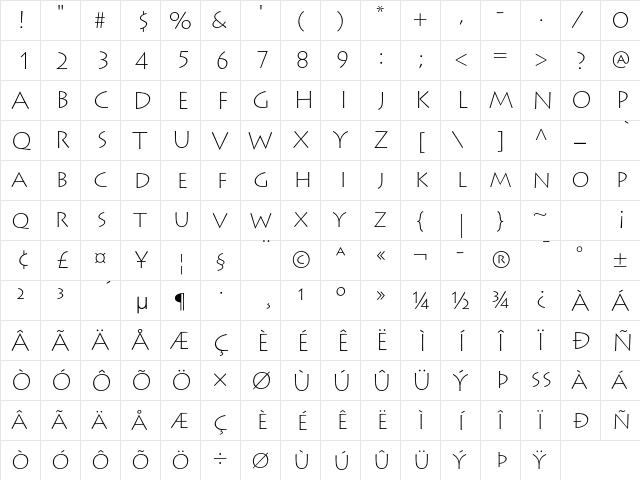
Lithos Pro Extra Light
| Designer | Carol Twombly |
Design Context for Lithos Pro Typeface
Lithos Pro is a composed and adaptable typeface that performs quietly and consistently across a wide range of design contexts. The delicate stroke weight brings airiness and refinement to layouts.
Pro Tip: Pair Lithos Pro with a font of contrasting weight or personality to build a more expressive typographic hierarchy.